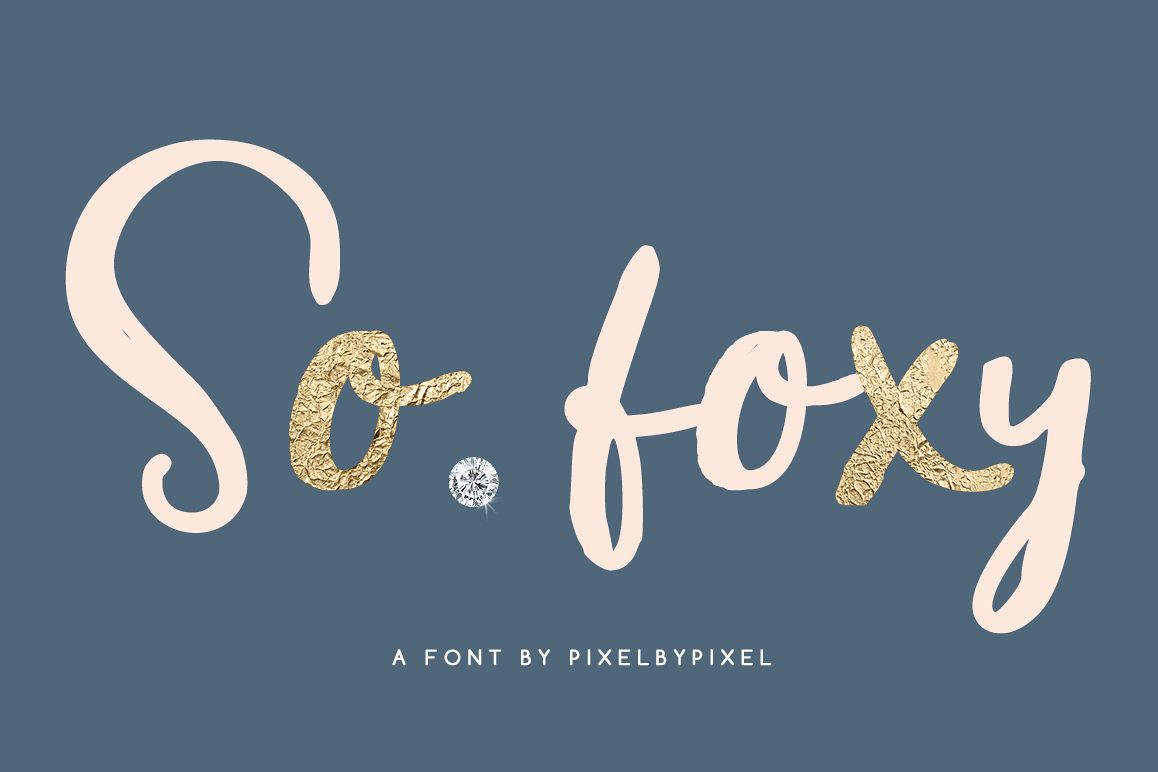
So Foxy Script Font
So Foxy
So foxy is a feminine hand drawn font great for quotes or girly designs!
• Uppercase and lowercase, numbers and puntuaction.
• Supports international characters.